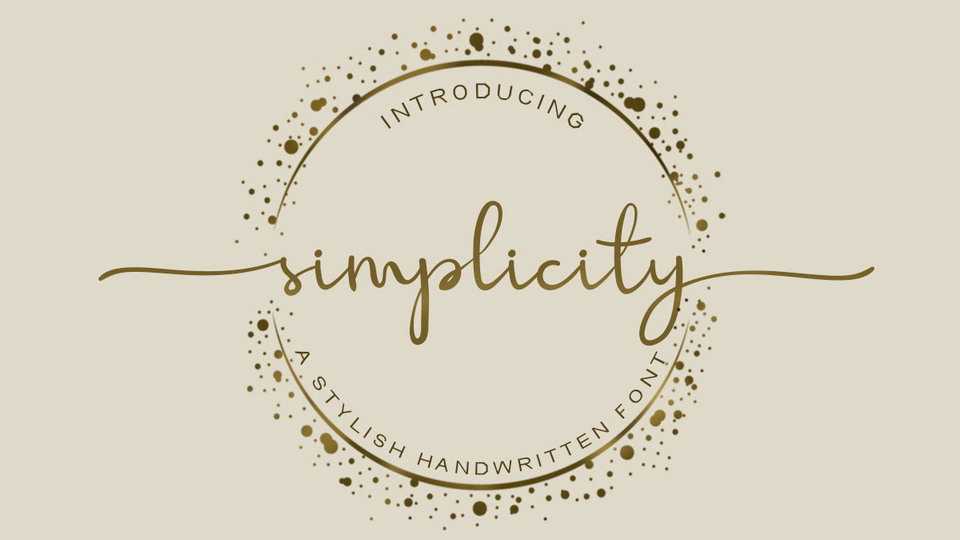
Download Simplicity font – a beautiful handwritten script with alternates swash characters. This font is to use for any kind of design such as branding projects, logo, bussines card, wedding designs, social media posts, advertisements and more.
Designer: Graphix Line Studio